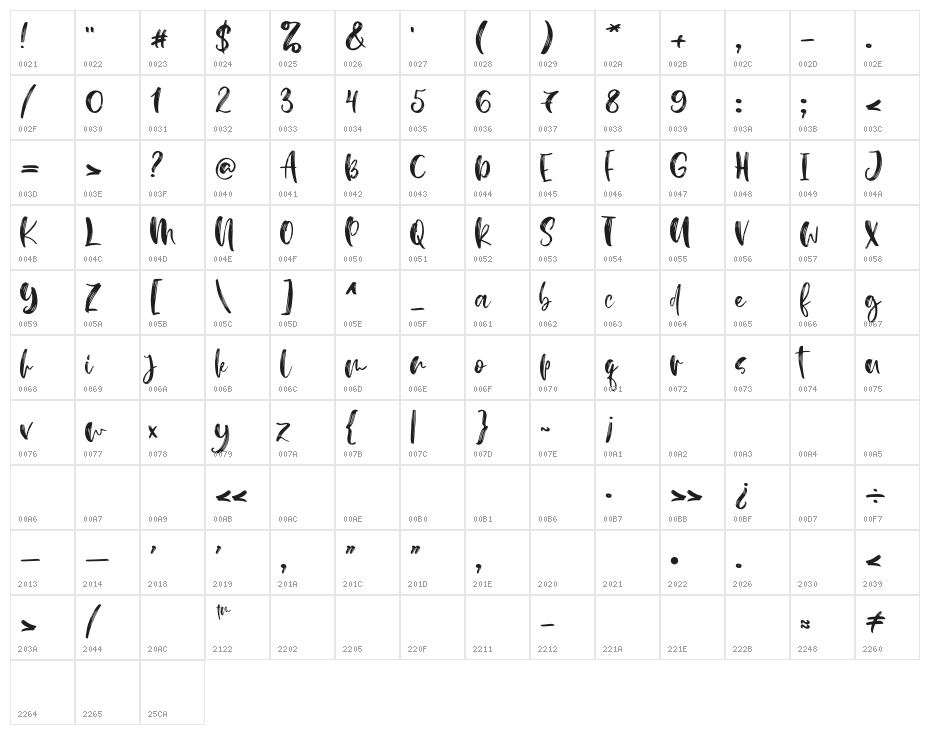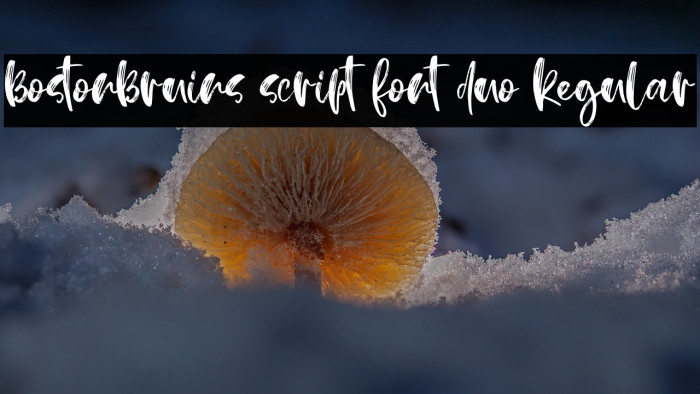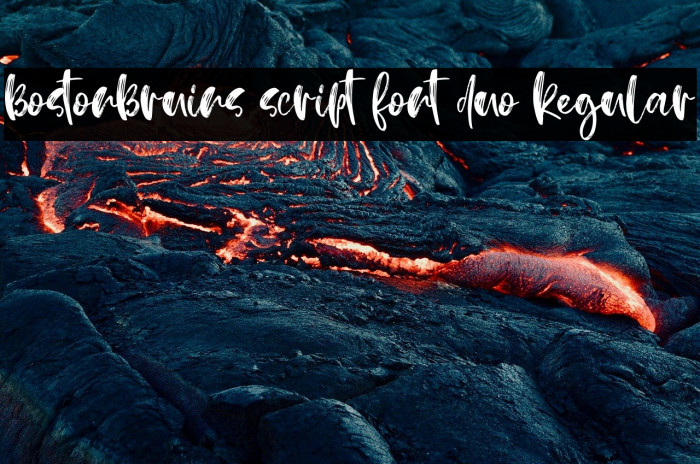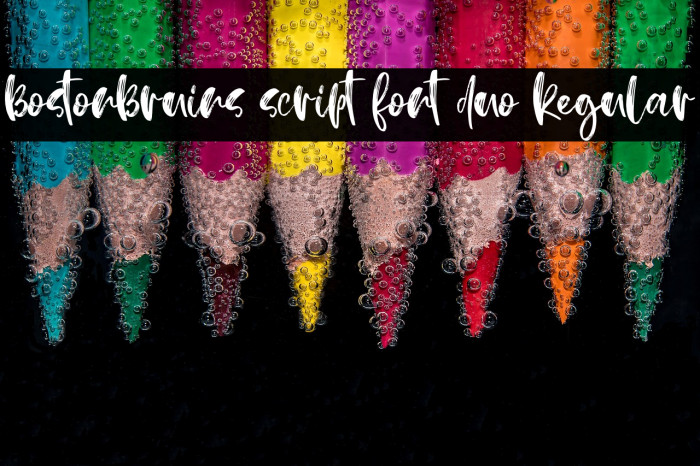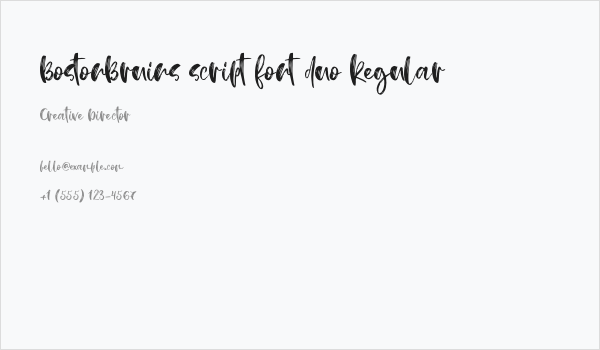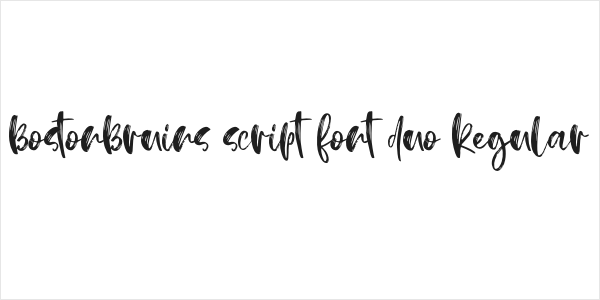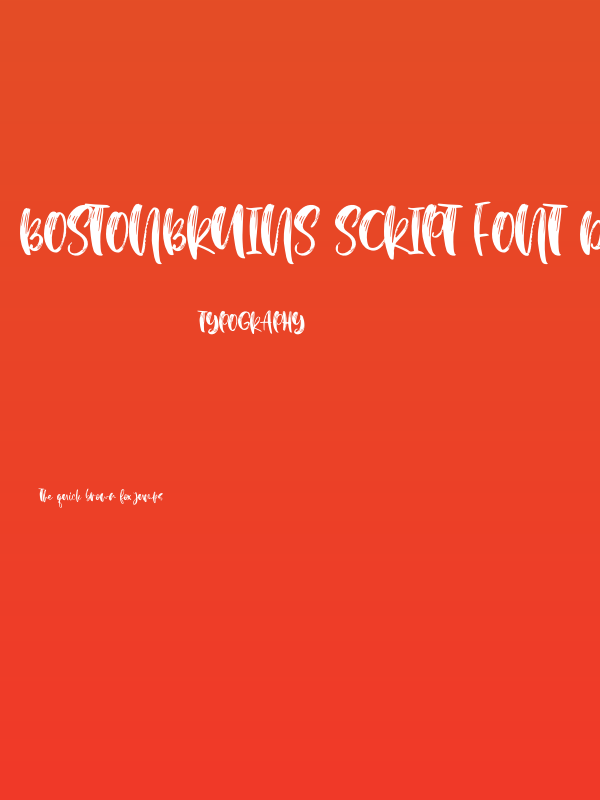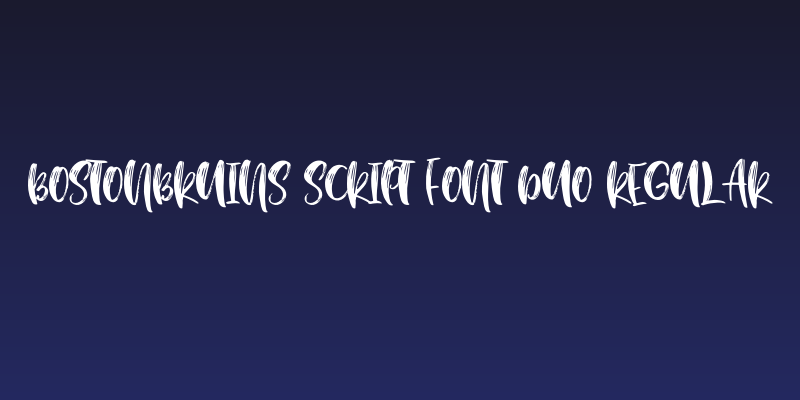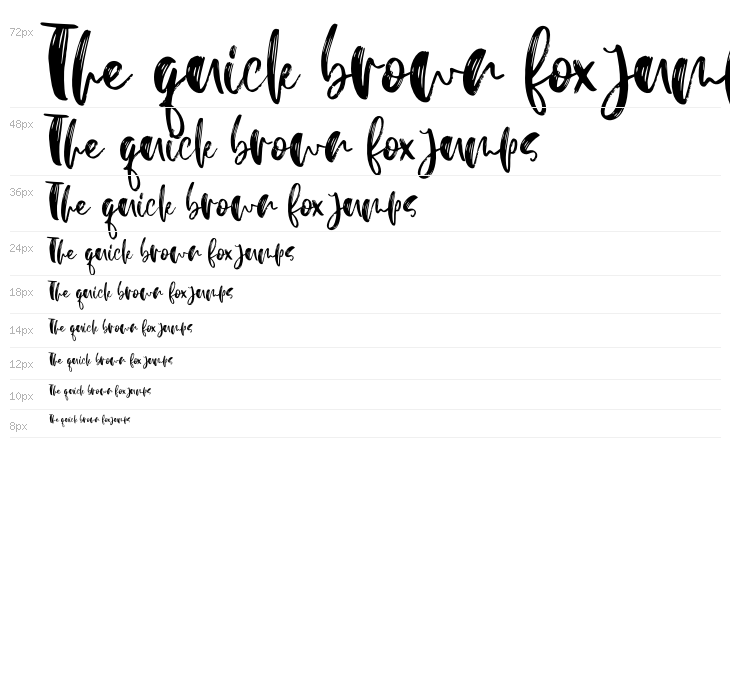
BostonBruins script font duo Regular Font
BostonBruins script font duo Regular Description
This font features a bold, expressive script style with a hand-drawn appearance. The letters are characterized by thick, flowing strokes and a dynamic, energetic feel. The uppercase letters are particularly striking, with exaggerated curves and a sense of movement. The lowercase letters maintain a cohesive look, complementing the uppercase with a slightly more relaxed form. Numbers and special characters are designed with the same bold, artistic flair, making them stand out. This font is perfect for projects that require a personal touch or a creative, artistic vibe.